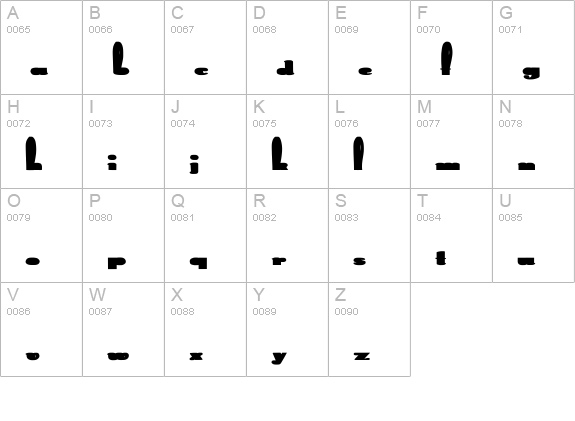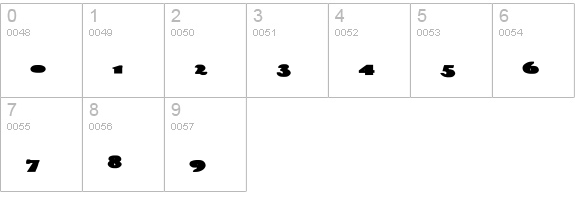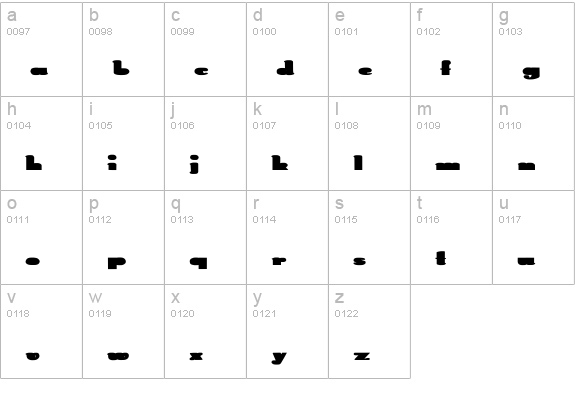
Rabbit Wd Bold Font Details
Rabbit Wd Bold is a strong, high-contrast variant in the Rabbit typeface family \xE2\x80\x94 well suited to headlines, attention-grabbing titles, and strong calls-to-action.
Rabbit Wd Bold font is a captivating and versatile typeface that exudes elegance and boldness. Its unique design features a perfect blend of straight lines and curved edges, creating a harmonious balance between modernity and sophistication. This font is ideal for various design projects, including branding, advertising, packaging, and editorial layouts. Its bold and strong appearance commands attention, making it perfect for headlines, titles, and prominent text elements. Rabbit Wd Bold font is sure to make a lasting impression on any viewer. One of the best aspects of this font is that it is freely available to download at FontsMarket.com. This means that you can access and use this stunning typeface without any cost or limitations. Whether you are a professional designer or an enthusiast, you can enjoy the beauty and versatility of Rabbit Wd Bold font without worrying about any financial constraints. With its wide range of characters and extensive language support, Rabbit Wd Bold font allows you to express your creativity and communicate your message effectively. Its clean and legible letterforms ensure readability across different sizes and mediums, guaranteeing a seamless visual experience for your audience. So why wait? Enhance your design projects with the striking Rabbit Wd Bold font and bring your ideas to life. Download it for free at FontsMarket.com and take your designs to new heights of excellence.